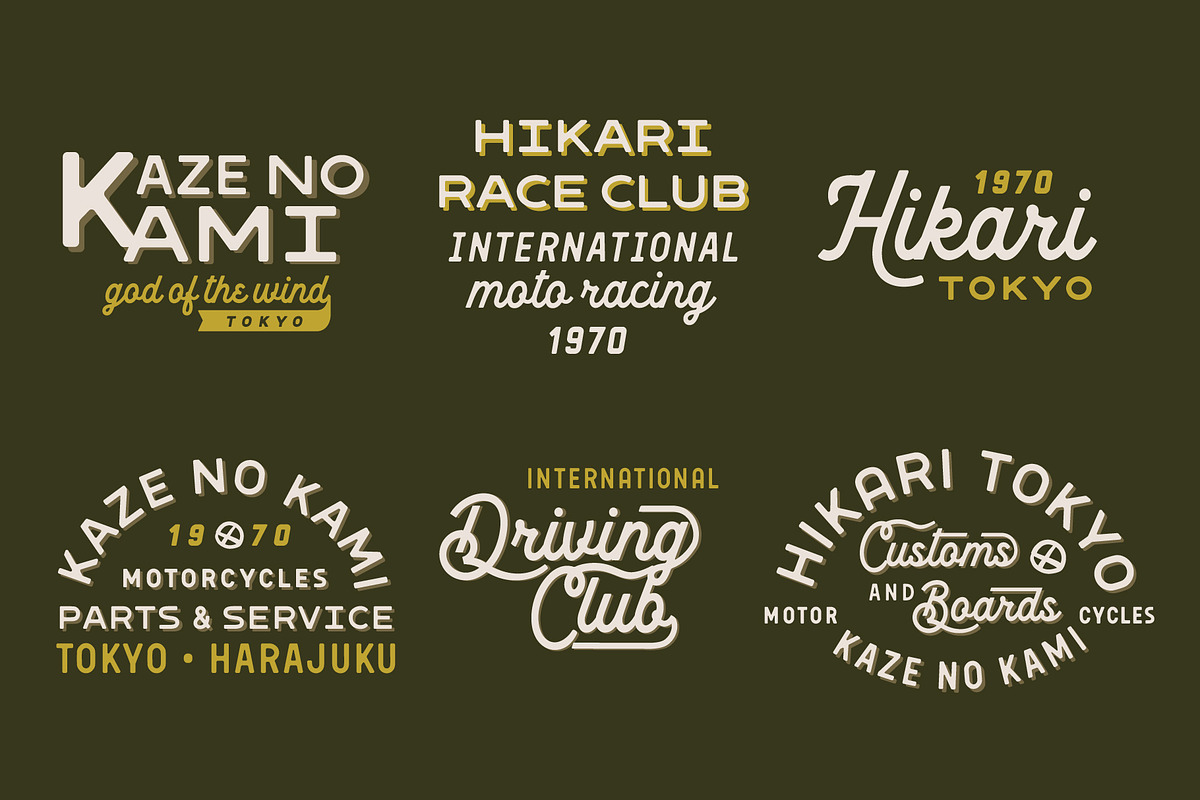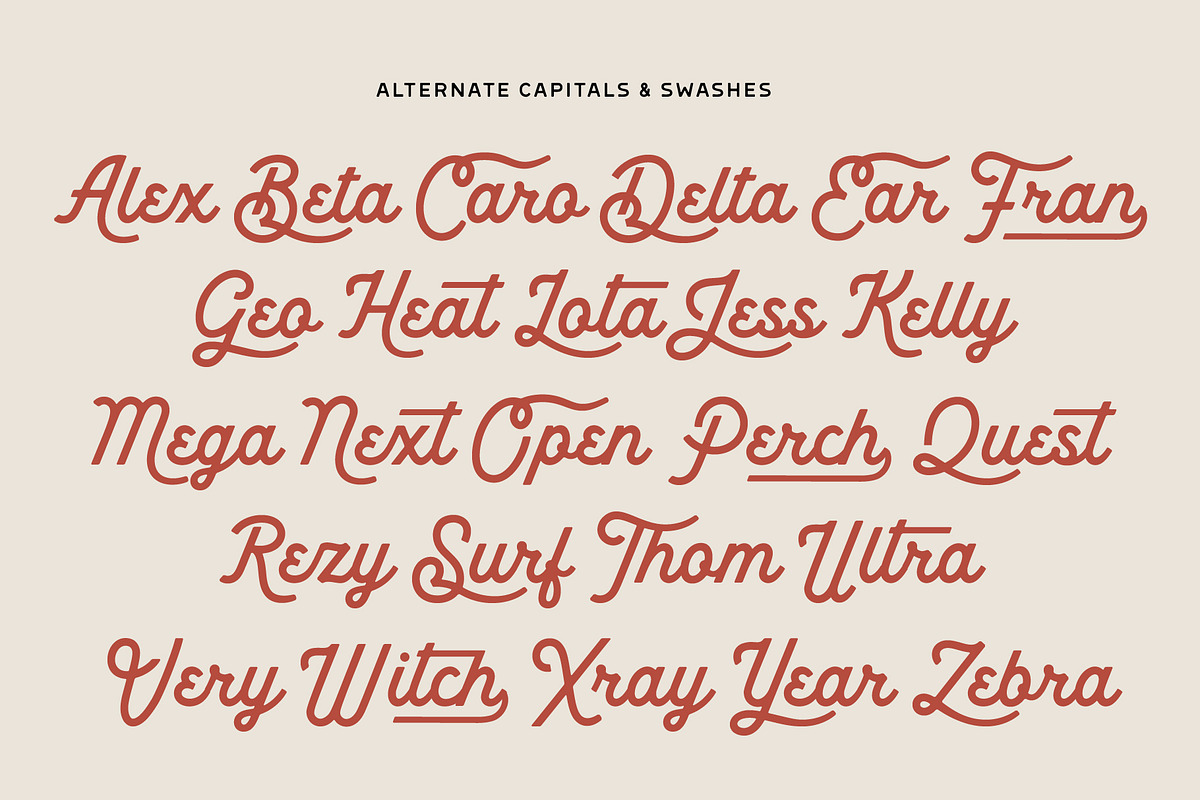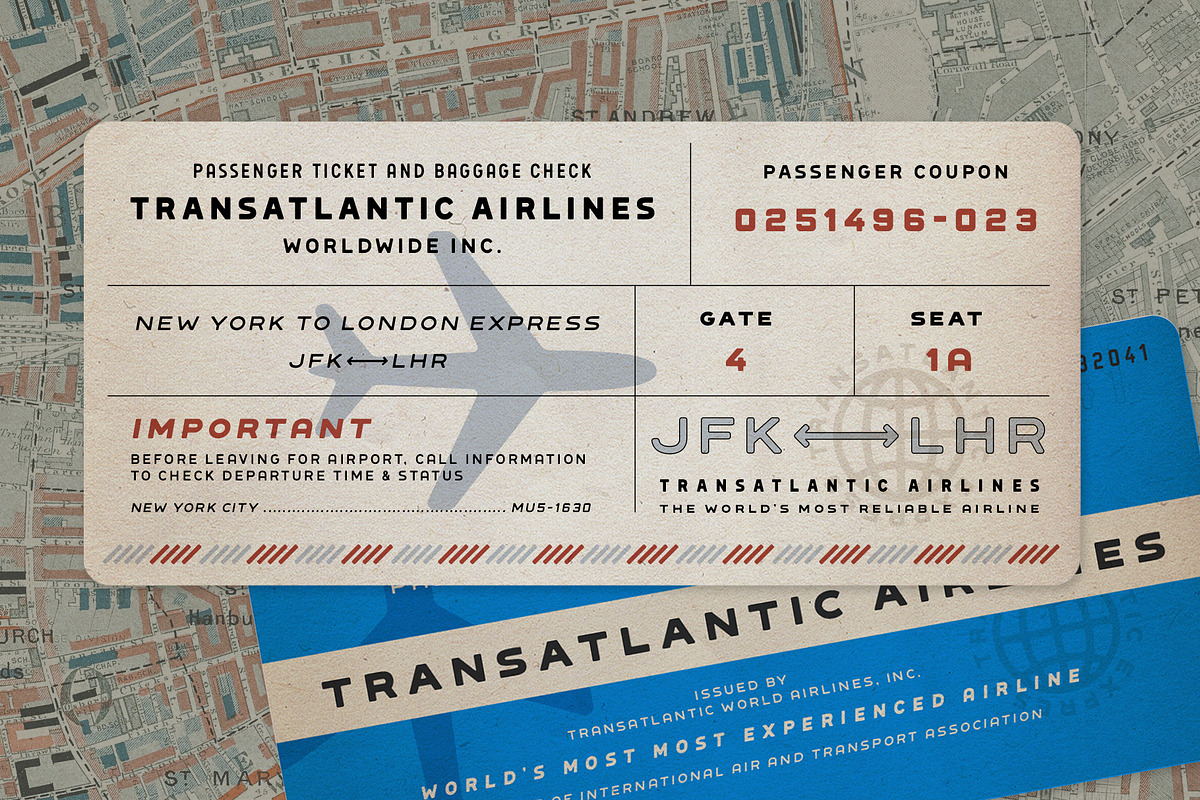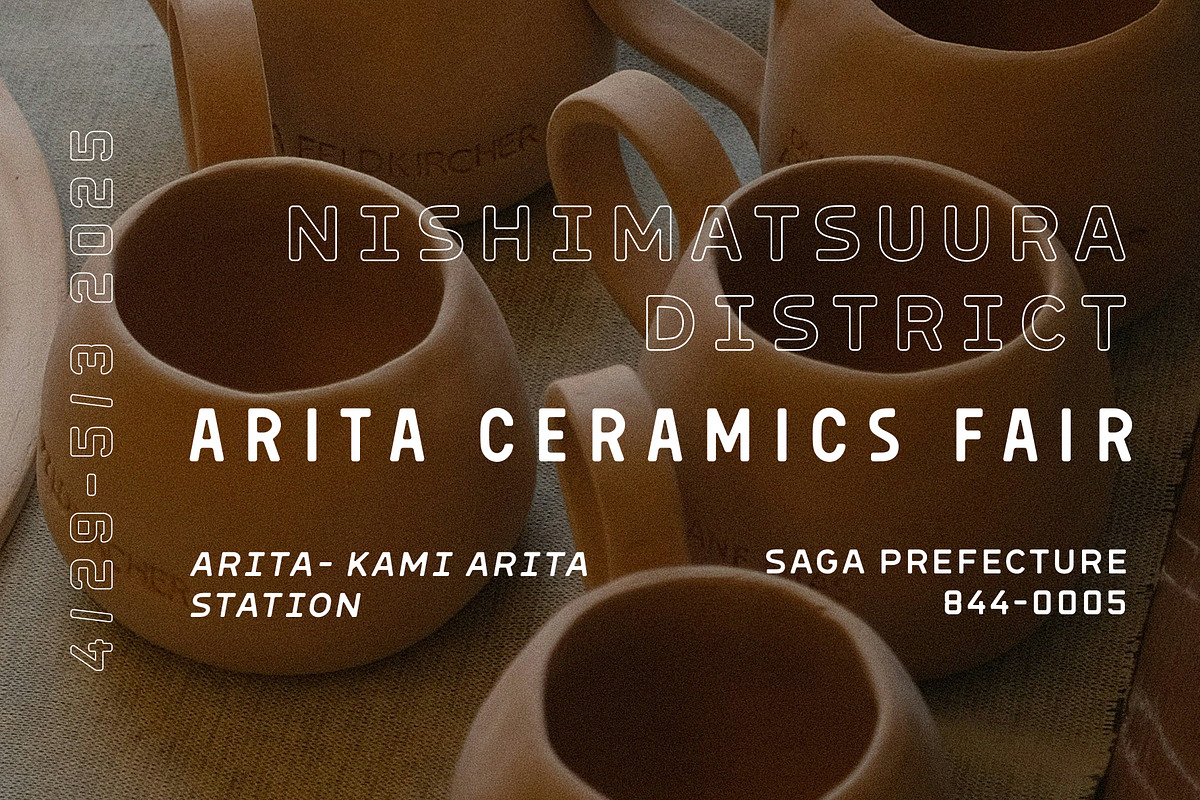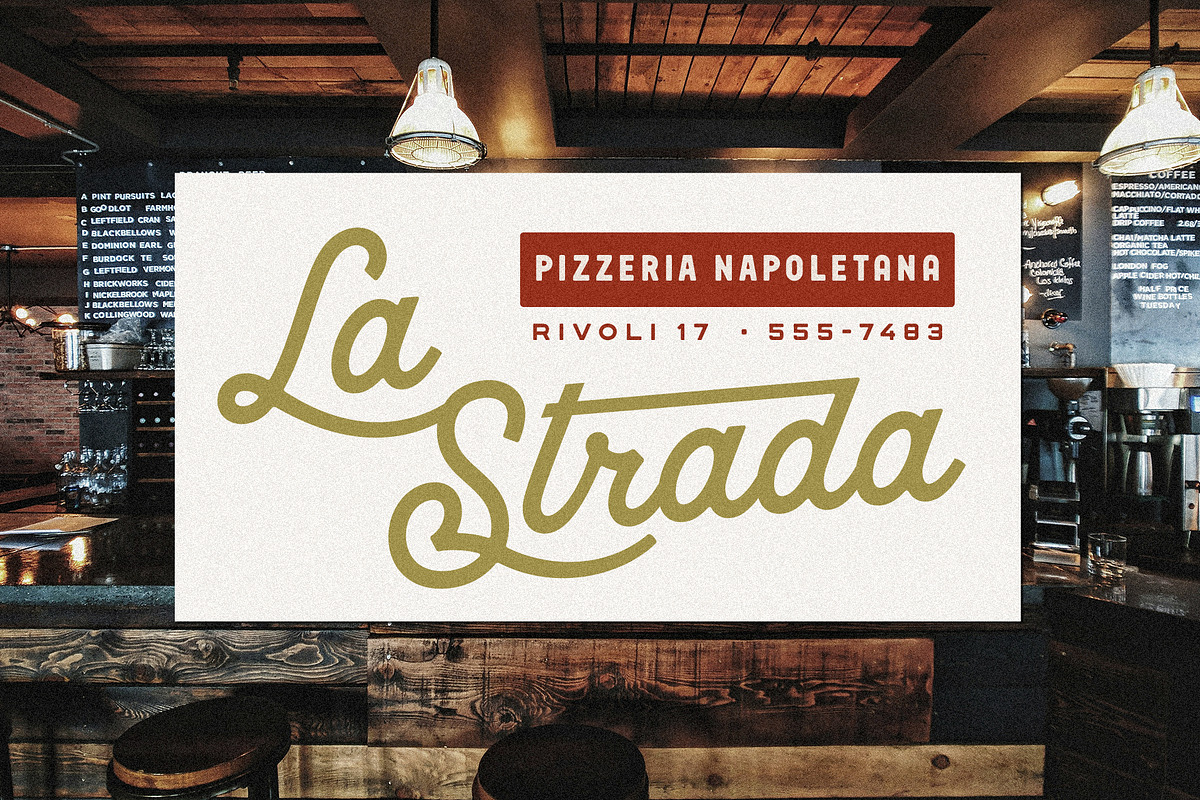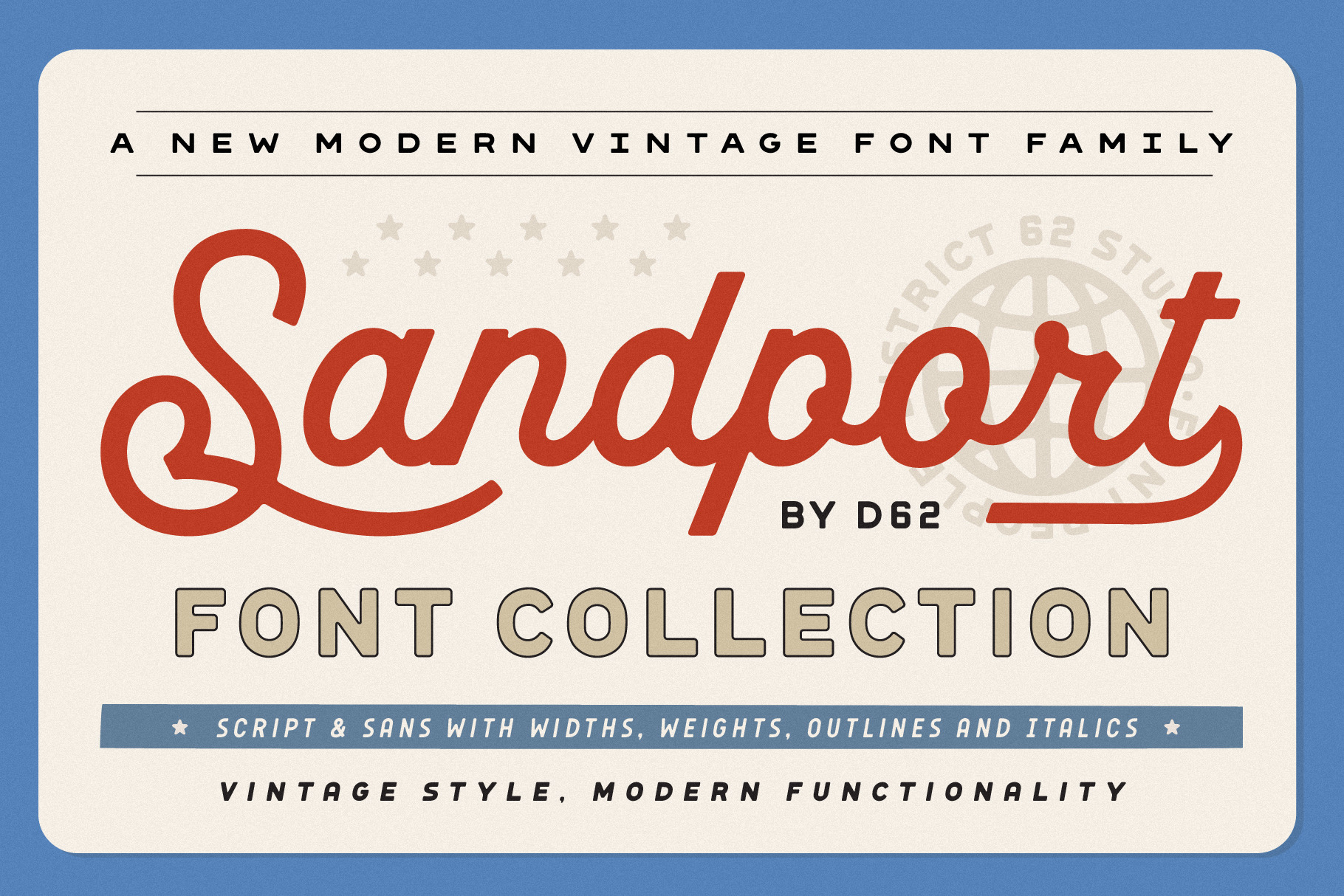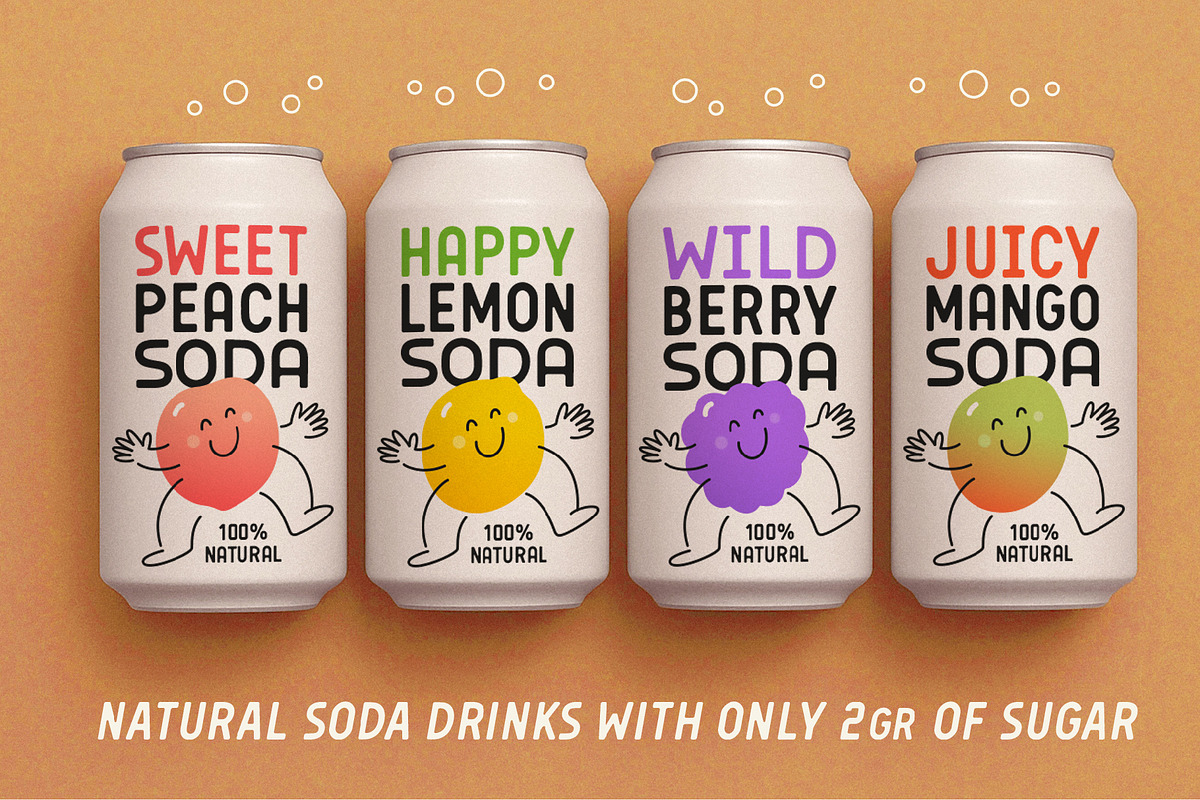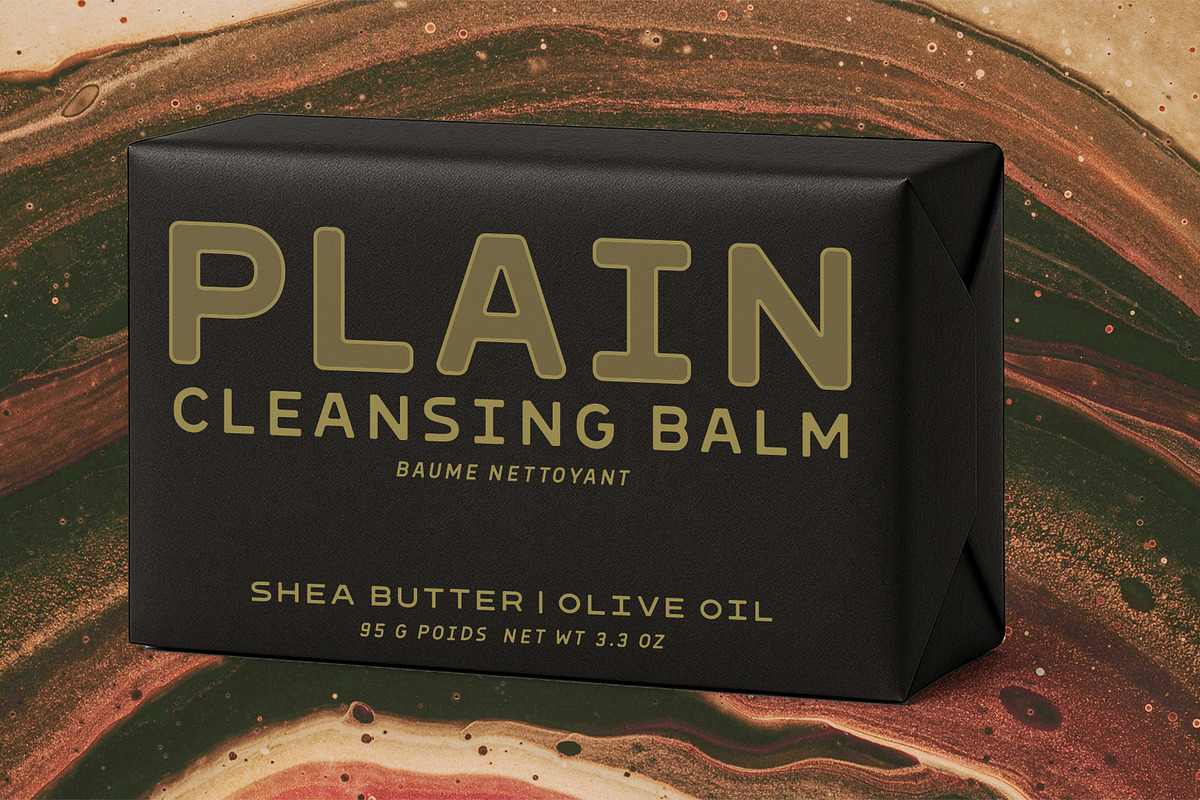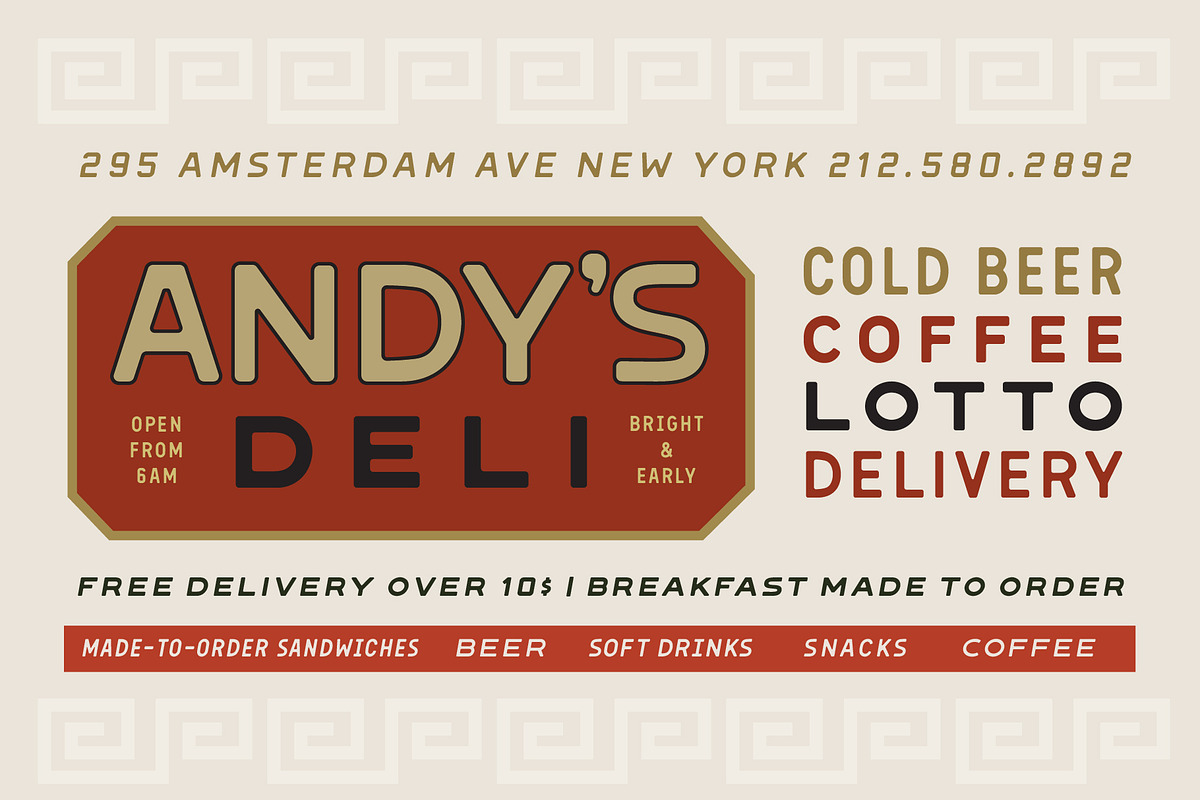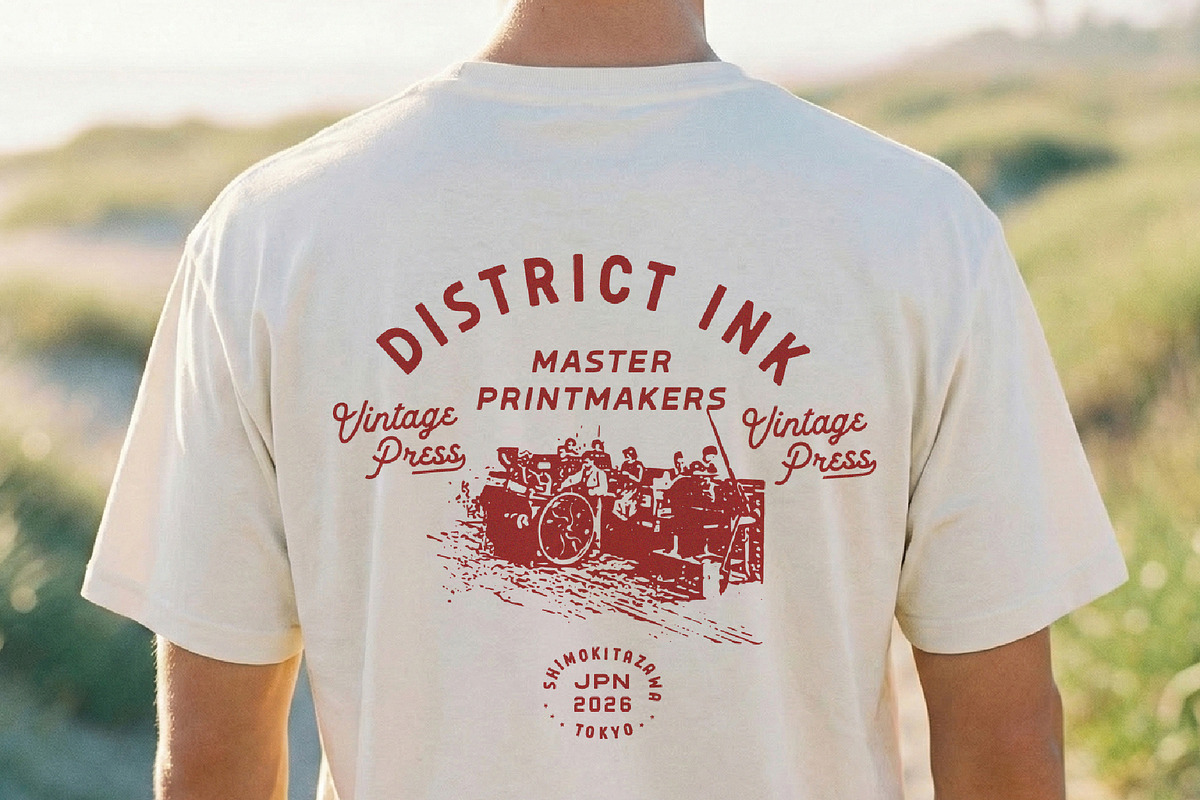
Sandport Font Collection
SANDPORT FONT FAMILY | Script, Sans in 60 Styles and Bonus Logos - a new modern vintage font family by District 62 inspired by international postage stamps, punched metal signage, old tool & dye shop stampings, industrial packaging, and heritage workshop typography — reimagined with a clean, contemporary edge.
Built for designers who love classic American utility lettering but need flexibility, Sandport combines a confident script with a massive, highly versatile sans system.
From deli signage and moto badges to craft packaging, café branding, soda cans, apparel graphics, and editorial layouts — Sandport delivers authentic vintage character without sacrificing modern usability.
What’s Included Sandport Script A clean, confident script inspired by painted workshop signage and hand-lettered metal stamps that has:
- Stylish swashes
- Alternate capitals
- Contextual alternates
- Vintage badge-ready personality Perfect for logos, signage, packaging, and apparel, the script pairs effortlessly with the sans to create layered, dimensional branding systems.
Sandport Sans – 60 Styles A layered, industrial sans serif system influenced by vintage postal marks, stamped metal type, factory markings, and mid-century tool label that has: -60 styles total -Multiple weights -Width variations -Italics -Outline styles -Clean geometric construction -Strong uppercase presence -Excellent legibility for headlines & display From bold deli signage to refined cosmetic packaging, this system adapts to nearly any branding project.
-Massive flexibility with 60 sans styles
- Modern Vintage feel
- Professional typographic structure
- Works for both masculine industrial brands and refined packaging
- Easy to mix, stack, outline, and badge
The result is a modern vintage font family that feels authentic, structured, and intentional.